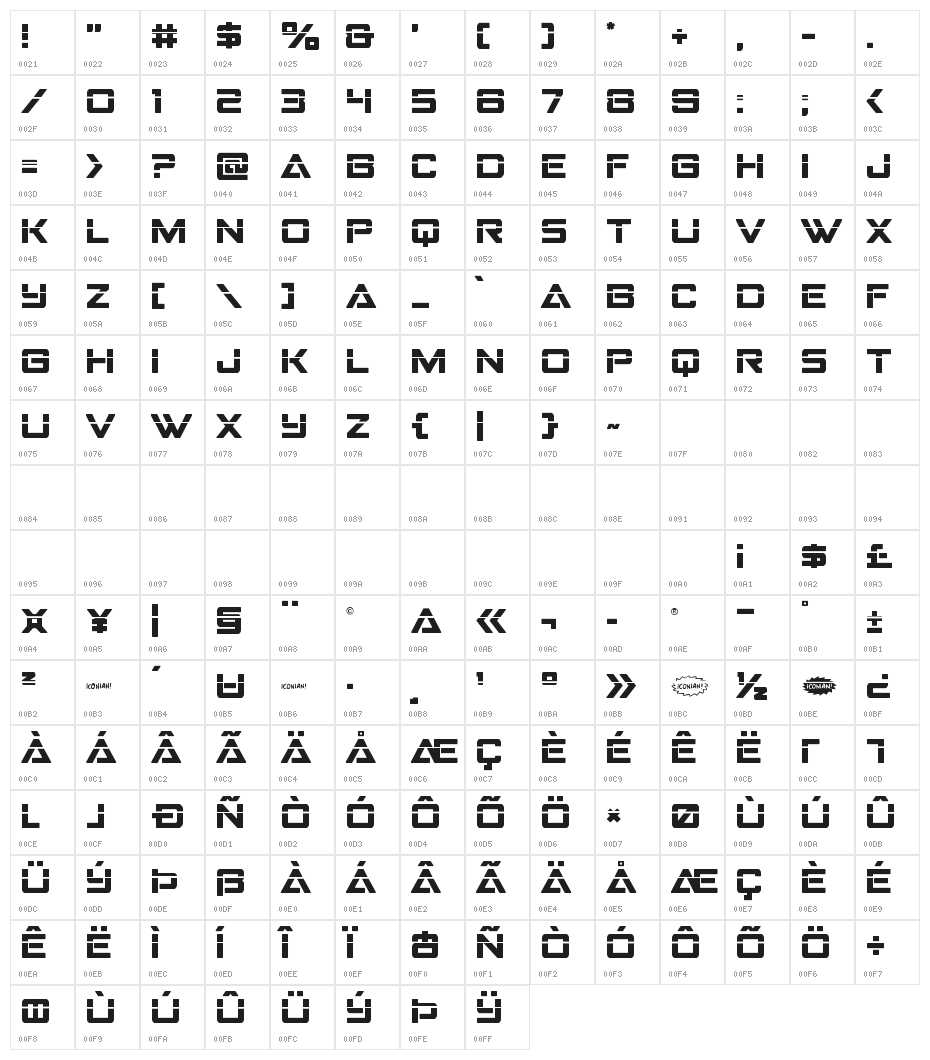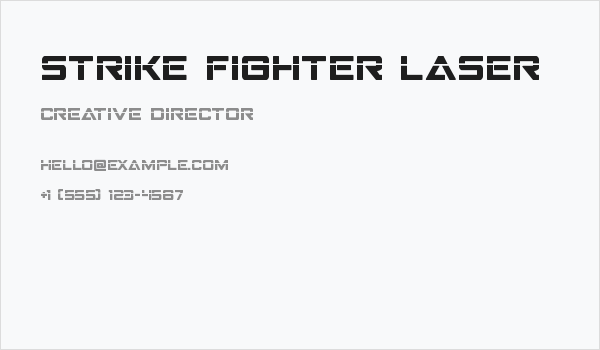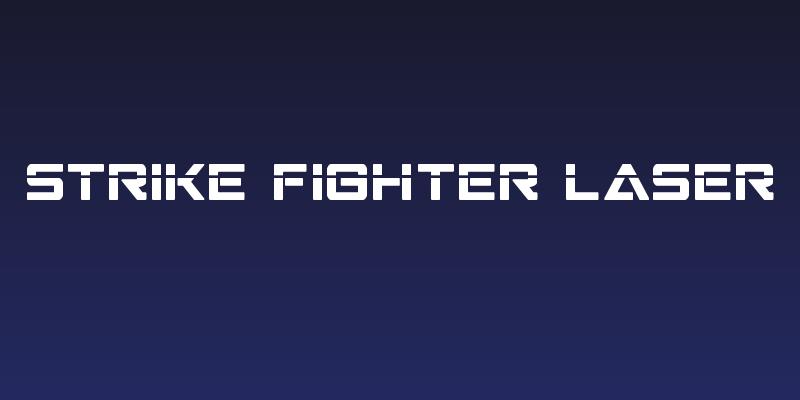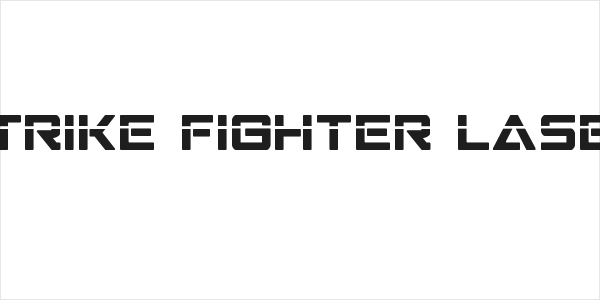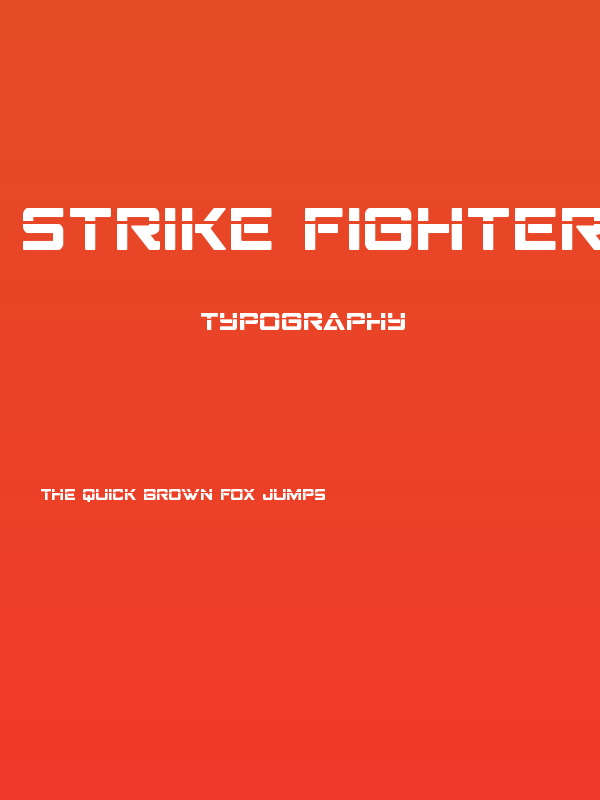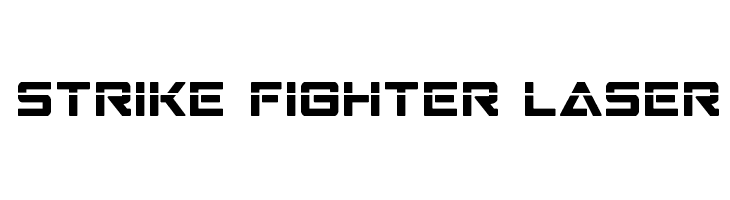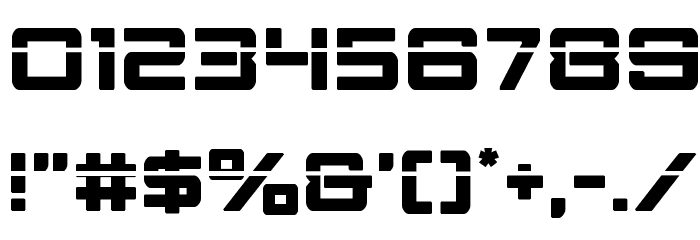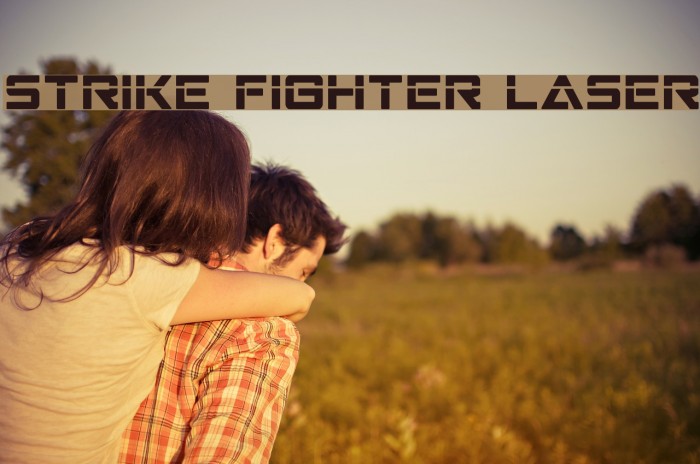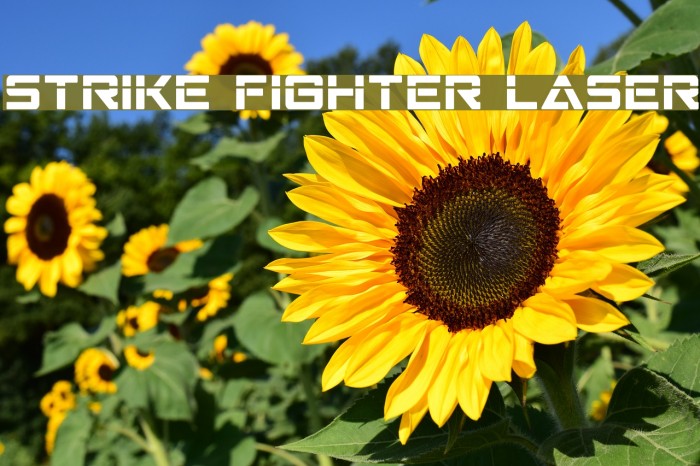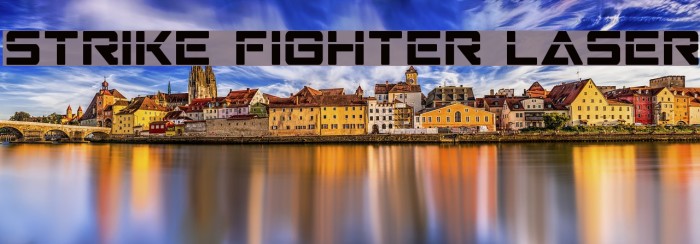
Strike Fighter Laser Font
Strike Fighter Laser Description
This font features a futuristic and bold design with sharp, angular edges and a geometric structure. The characters are constructed with a stencil-like appearance, giving it a high-tech and industrial feel. The uppercase letters are uniform in height, while the numbers and special characters maintain the same boldness and style. The font's unique cut-out sections within each character add to its modern and dynamic look, making it ideal for projects that require a strong and impactful visual presence.
| Proposed Projects | Ideal for sci-fi themed designs, video game titles, technology branding, and futuristic posters. |